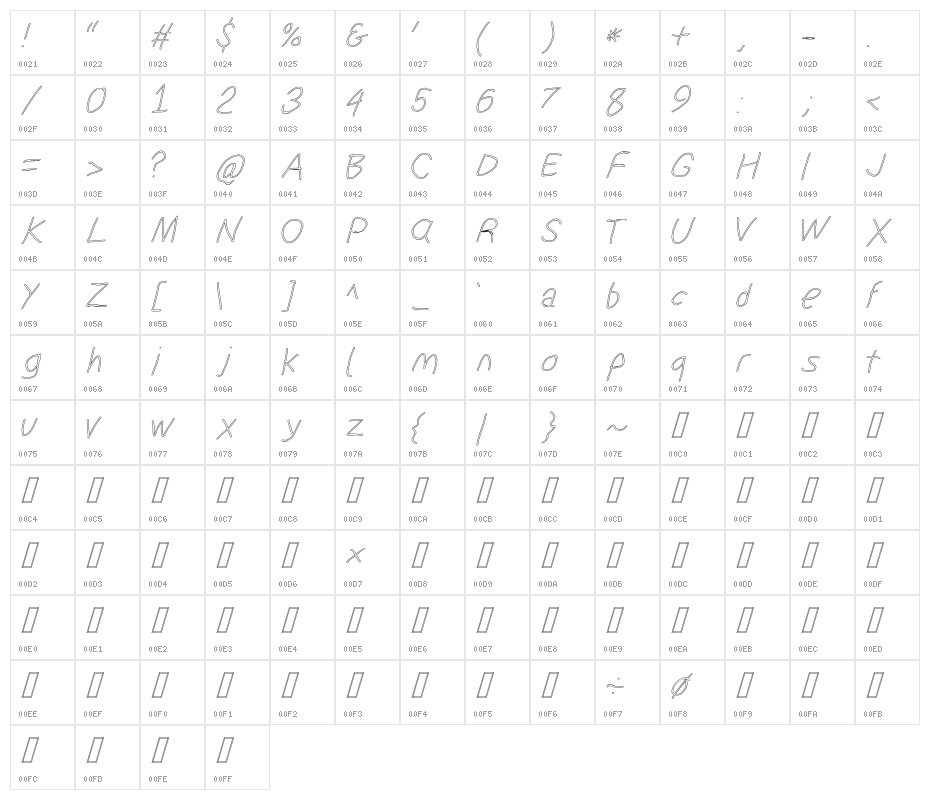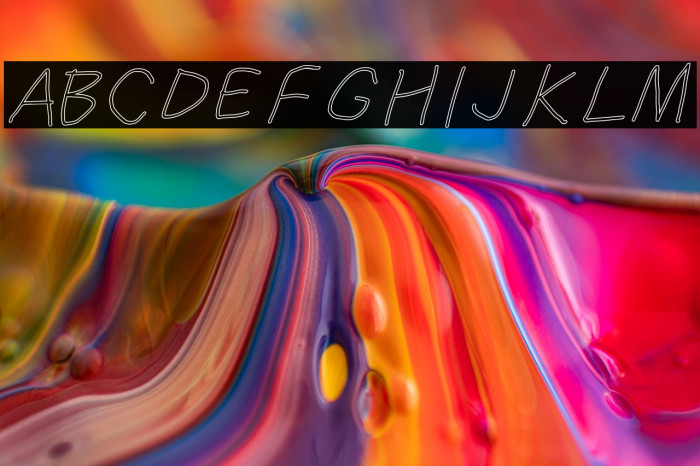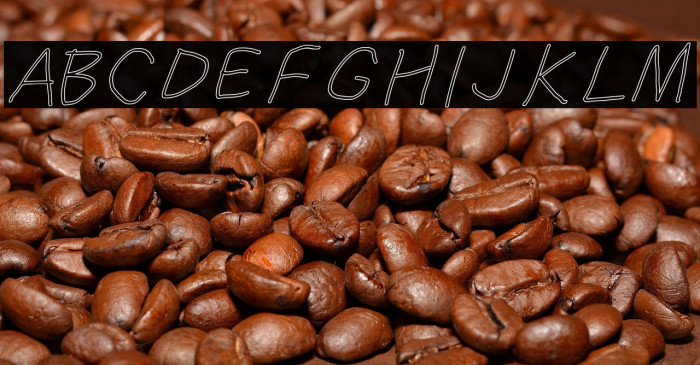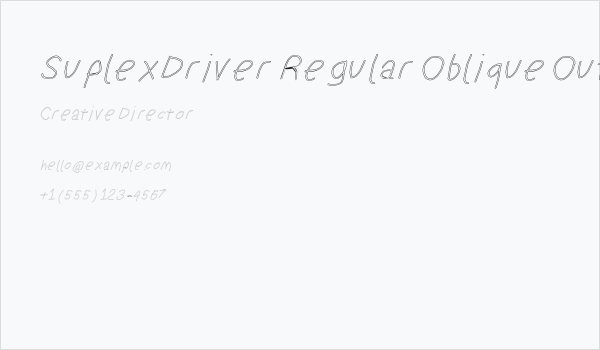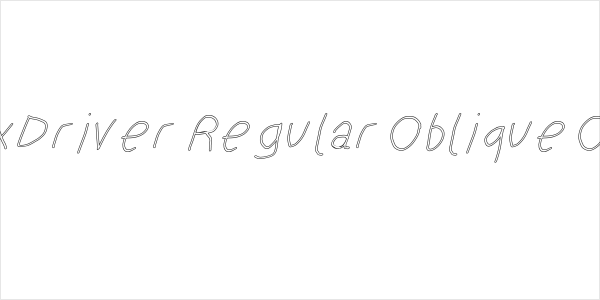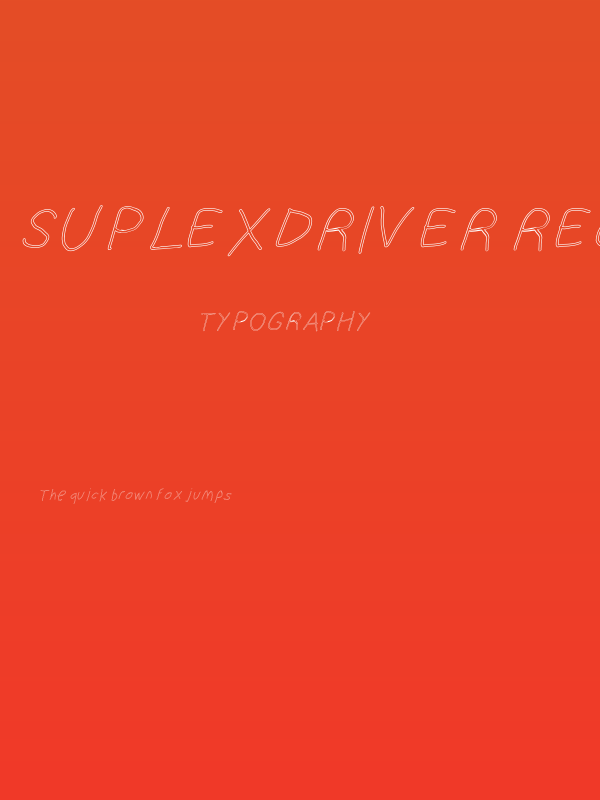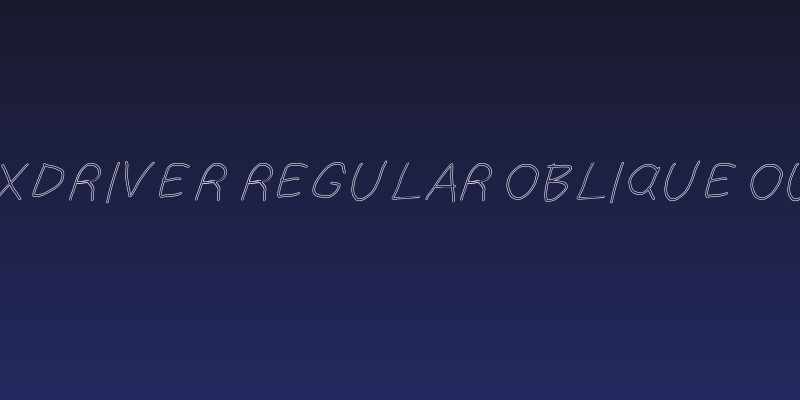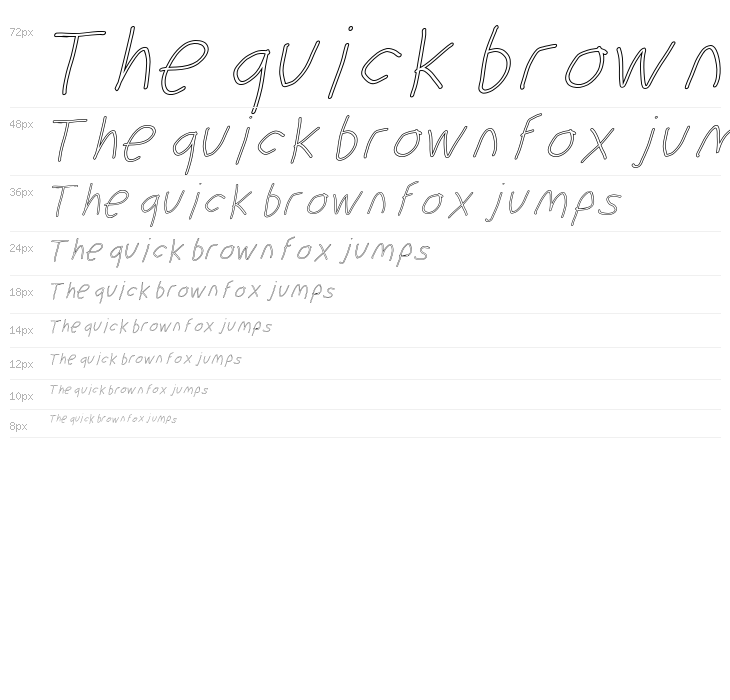
SuplexDriver Regular Oblique Outline Font
SuplexDriver Regular Oblique Outline Description
This font features a playful and dynamic style with a hand-drawn appearance. The letters are outlined, giving them a unique, sketch-like quality. The strokes are consistent in width, creating a uniform look across all characters. The oblique angle adds a sense of movement and energy, making it stand out. The uppercase and lowercase letters maintain a casual, informal vibe, while the numerals and special characters complement the overall aesthetic. This font is ideal for projects that require a fun and approachable feel.